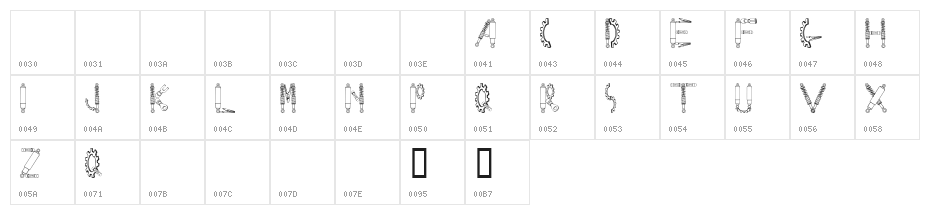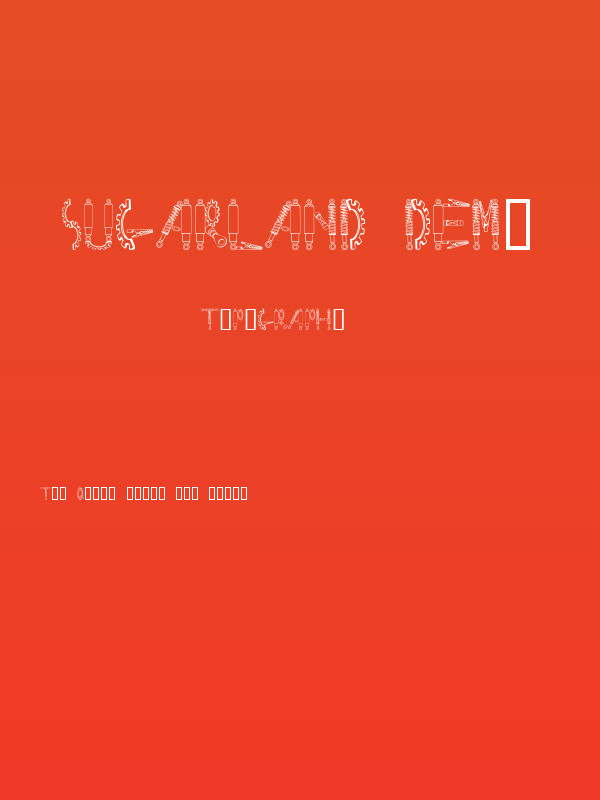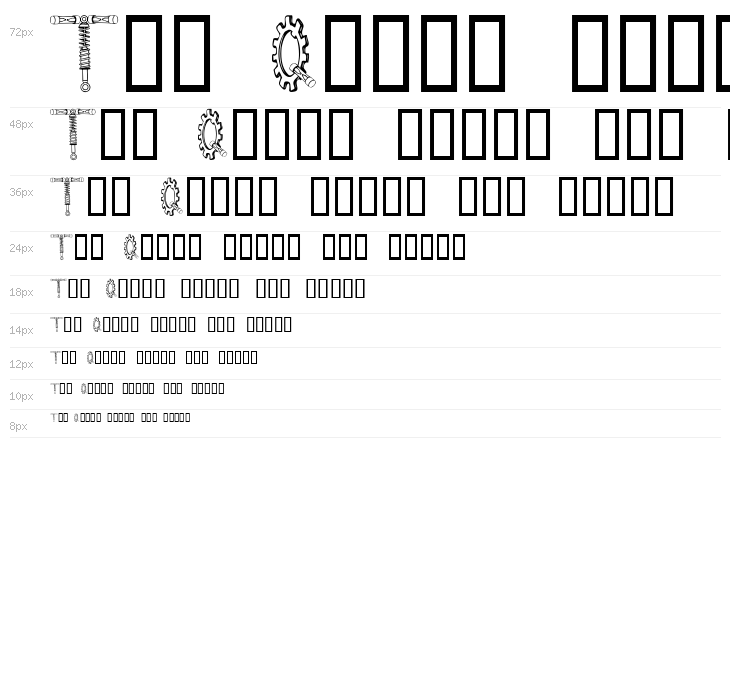
Sugarland Demo Font
Sugarland Demo Description
This font is a creative and playful display typeface that incorporates mechanical elements into each character. The letters are constructed using various mechanical parts such as gears, springs, and bolts, giving it a distinct industrial and steampunk aesthetic. The design is intricate and detailed, making it ideal for projects that require a unique and eye-catching typeface. The font is not suitable for body text due to its decorative nature but works well for headlines and thematic designs.
| Proposed Projects | Ideal for steampunk-themed posters, mechanical or engineering event flyers, and creative branding projects. |